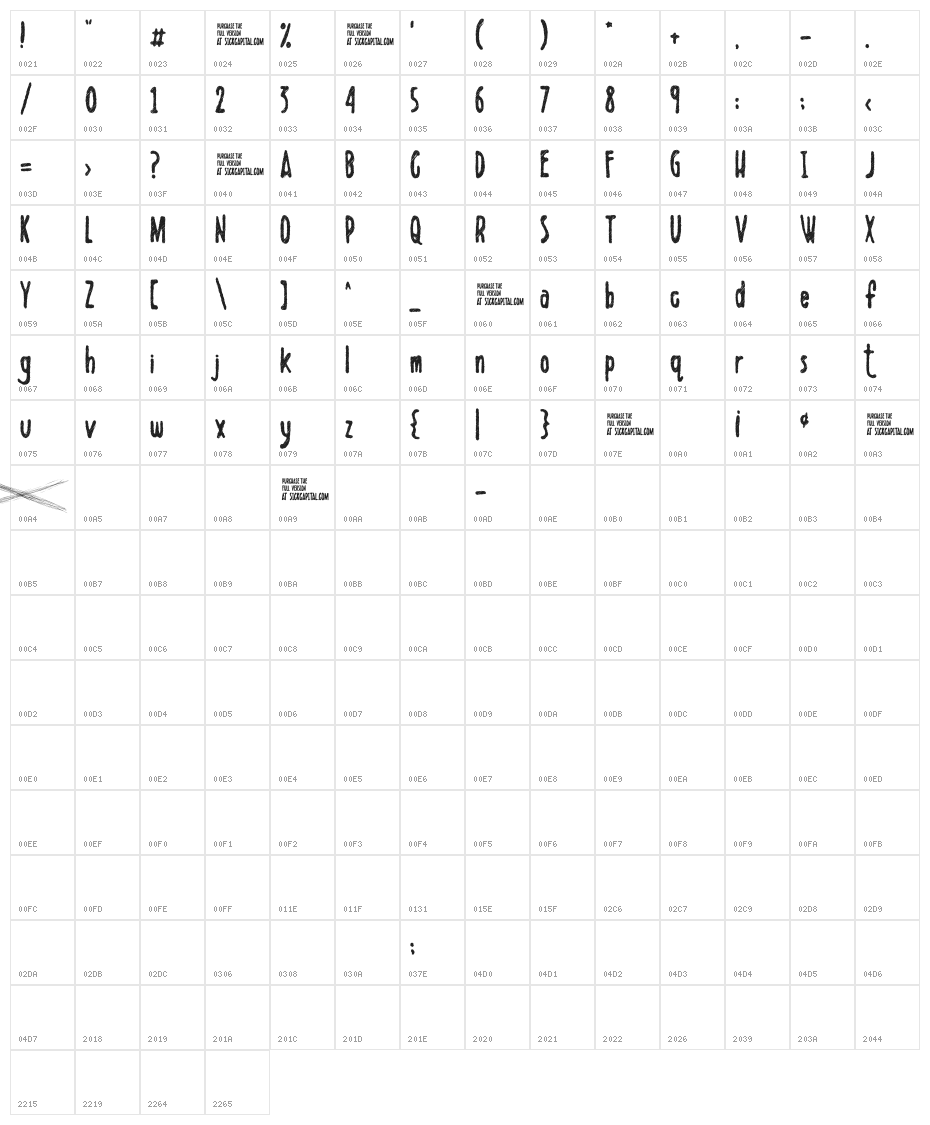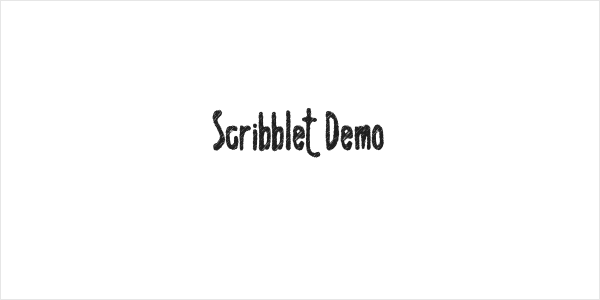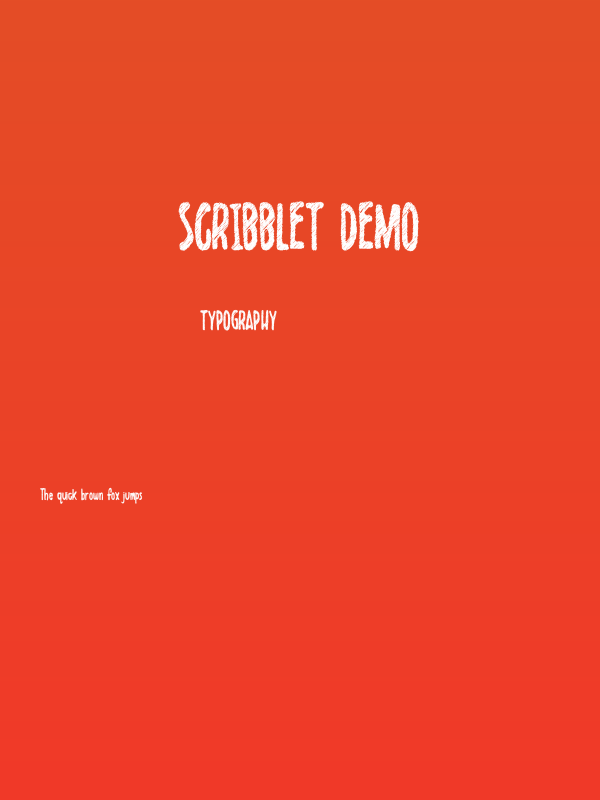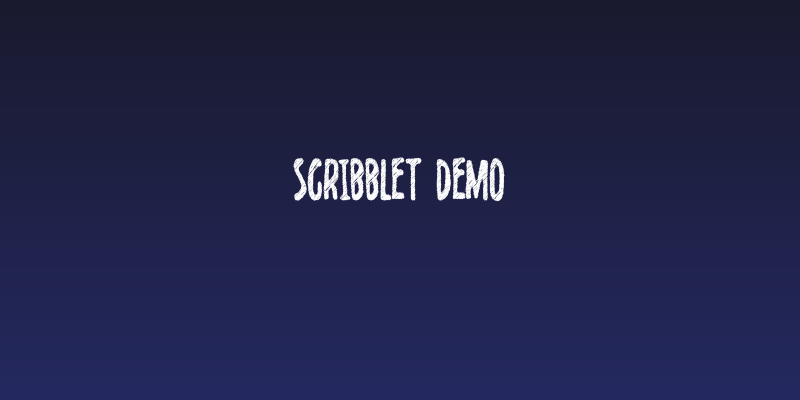
Scribblet Demo Font
Scribblet Demo Description
This font features a playful and textured design, reminiscent of hand-drawn scribbles. The characters have a rough, uneven texture that gives them a dynamic and energetic appearance. The uppercase and lowercase letters maintain a consistent style, with rounded edges and a slightly irregular form that adds to the casual, informal feel. Numbers and special characters follow the same aesthetic, ensuring a cohesive look across all elements. The font's unique style makes it stand out, ideal for projects that require a touch of creativity and personality.
| Overall Style | Playful, Creative, Informal |
| Use Case | Headlines, Posters, Branding |
| Proposed Projects | Ideal for children's books, creative posters, casual branding, and playful social media graphics. |